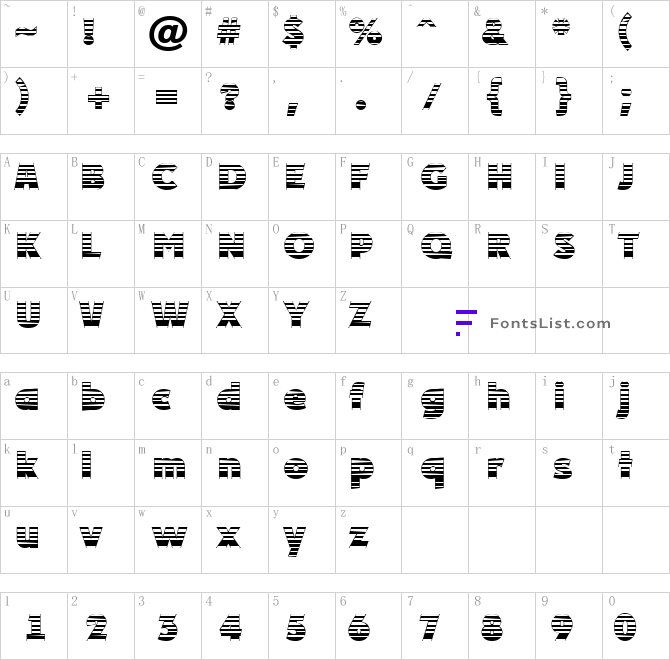
- Font Name:a_PlakatMr
a_PlakatMr.ttf is a very beautiful artistic font, a_PlakatMr.ttf is widely used in the design and printing of various books and pictures,a_PlakatMr.ttf has a strong visual impact,a_PlakatMr.ttf is a commonly used font in newspapers, magazines and books, and is used in posters, e-commerce Poster design, store design, logo design, font design and other fields.a_PlakatMr.